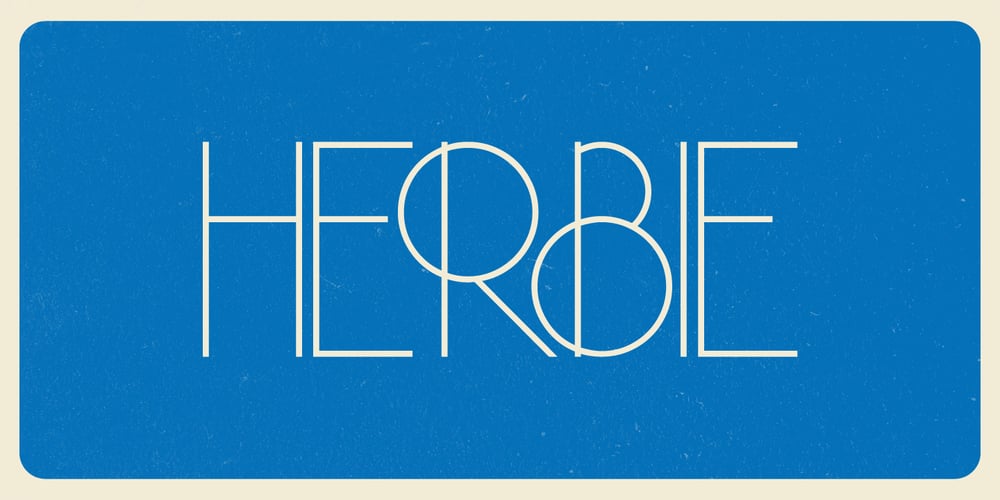
Herbie Font Family was designed by Morten Iveland and published by The Infamous Foundry. Herbie contains 1 styles and family package options. Herbie is a uppercase display font with alternates on every character (upper/lowercase), based only on circles and geometric lines. Herbie is inspired by, as the name might indicate, Herb Lubalin’s work and the decorative style and kerning of his era.